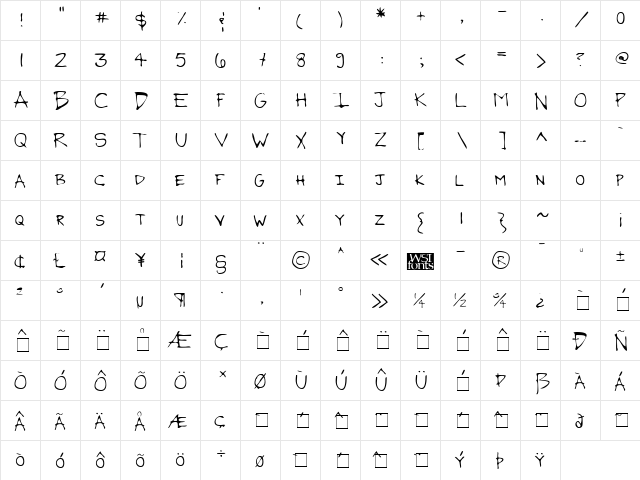
GrantsHand Regular
Design Context for GrantsHand Typeface
GrantsHand flows with the natural rhythm of handwritten lettering, making it ideal for designs that call for warmth and personal expression.
Font Pairing: Combine GrantsHand with a simple geometric sans for maximum contrast — the tension between flowing curves and clean structure is a classic typographic pairing.
Pro Tip: Use GrantsHand for short runs of text — names, titles, or taglines. Extended body copy in script faces tires the eye quickly.